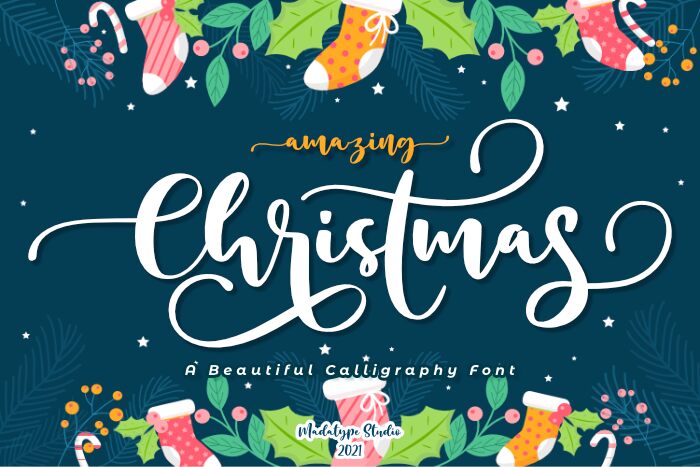
Get ready to add some festive flair to your design projects with Amazing Christmas, the latest creation from Andrimada Creative. This stunning Christmas calligraphy font boasts intricate swirls and loops that evoke the spirit of the season while providing a touch of elegance to any project. Perfect for holiday cards, invitations, posters or any design project where you want to infuse a little holiday cheer. The semi-bold font style ensures that your text stands out while also being easy to read. Whether you're creating a seasonal menu or designing graphics for your social media channels, Amazing Christmas is sure to impress!
Amazing Christmas
Andri Ardianto & Madatype Studio